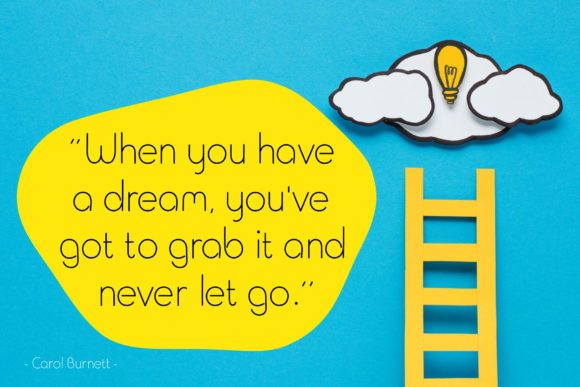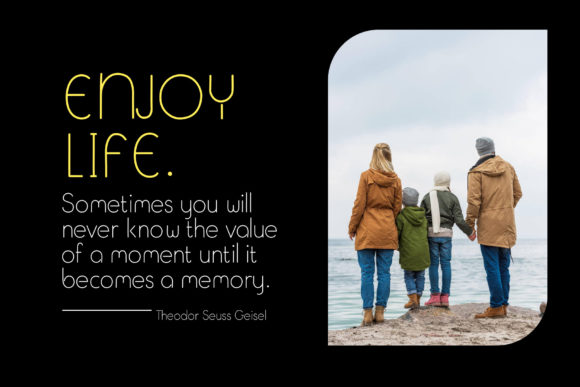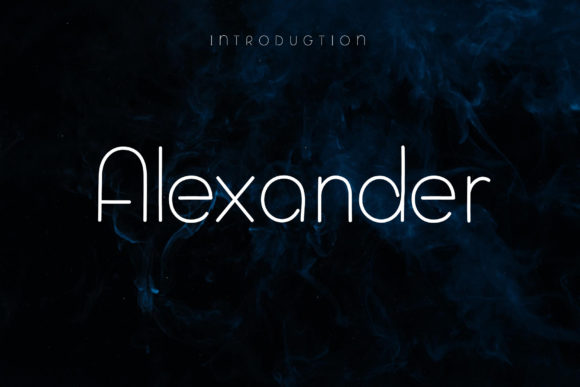
The Alexander Font: A Designer’s New Best Friend
I’ll never forget the time I was working on a logo design project for a client who wanted a modern, elegant look. I had spent hours browsing through font libraries, but nothing seemed quite right. That’s when I stumbled upon the Alexander font. Its clean lines, thin strokes, and effortless readability won me over. In this article, I’ll share my experience with the Alexander font, its features, and how to make the most of it in your designs.
- ✨ Easy to read, even at small sizes
- ✅ Perfect for display text, headings, and titles
- 💡 Great for digital and print projects
- 🎨 Highly versatile, suitable for various design styles
While the Alexander font is an excellent choice, there are a few things to keep in mind:
- ⚠️ May not be the best choice for body text, as it’s a display font
- 🤔 Limited availability of stylistic alternates, but still offers OpenType features
The Alexander font was designed with the goal of creating a clean, modern, and highly legible display font. Its creator drew inspiration from classic typography, combined with a modern twist. The result is a font that’s both elegant and versatile.
Q: What type of projects is the Alexander font best suited for?
A: The Alexander font is perfect for various projects, such as blog posts, name cards, logos, branding, ads, invitations, greeting cards, and more.
Q: Does the Alexander font support OpenType features?
A: Yes, the Alexander font offers OpenType features, including ligatures and stylistic alternates.
Q: Can I use the Alexander font for body text?
A: While possible, it’s not recommended to use the Alexander font for body text, as it’s a display font designed for headings and titles.